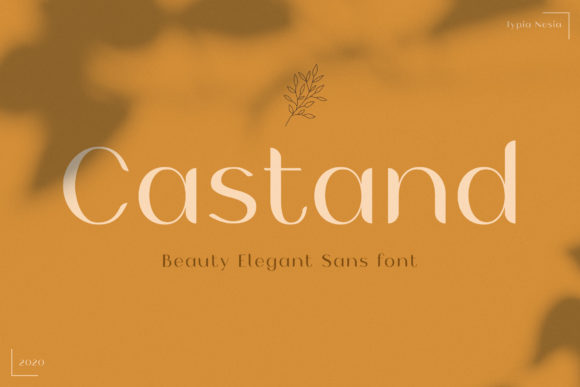
Prepare yourself to be mesmerized by Castand Font, a stunning sans serif creation by Typia Nesia that exudes elegance and grace. Its meticulously crafted characters dance across the digital canvas with a delicate touch, leaving a trail of visual harmony in their wake. With its clean, thin, and smooth vibe, Castand Font is poised to elevate your designs to new heights of sophistication.
Picture this: you're working on a captivating website article, seeking the perfect font to convey your message with style and clarity. Look no further than Castand Font, for it is the maestro of readability. Its well-balanced letterforms ensure effortless absorption of your words, allowing your ideas to flow seamlessly into the reader's mind.
But Castand Font's talents extend far beyond the realm of digital prose. Its versatility knows no bounds, making it an indispensable tool for a myriad of creative endeavors. Whether you're designing a timeless brand logo, crafting eye-catching product packaging, or conjuring invitations that spark curiosity, Castand Font will effortlessly elevate your designs, imbuing them with a touch of sophistication that captivates and enchants.
Imagine the impact of your quotes adorned with Castand Font's delicate charm, their messages amplified by the font's inherent elegance. Or envision your t-shirts transformed into wearable works of art, each letter a testament to your impeccable taste. The possibilities are endless, and Castand Font stands ready to guide your creativity, transforming your designs into masterpieces.
So, embrace the allure of Castand Font, a beacon of beauty and functionality. Let its enchanting characters grace your creations, and witness the transformation as your designs blossom into works of art that capture hearts and ignite imaginations. Castand Font awaits your command, ready to unveil the hidden potential within your creative vision.